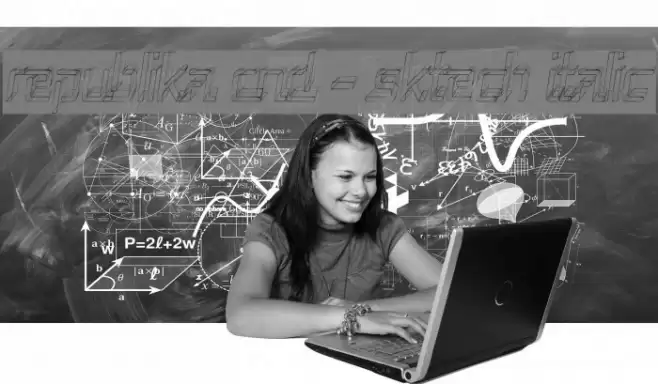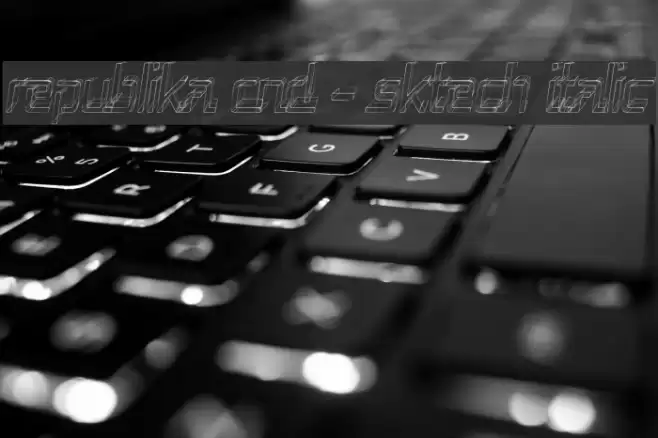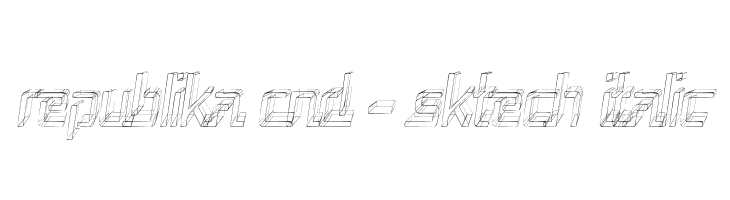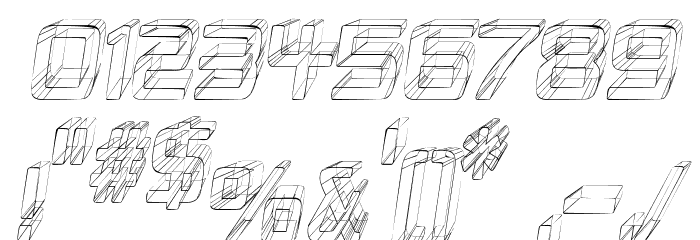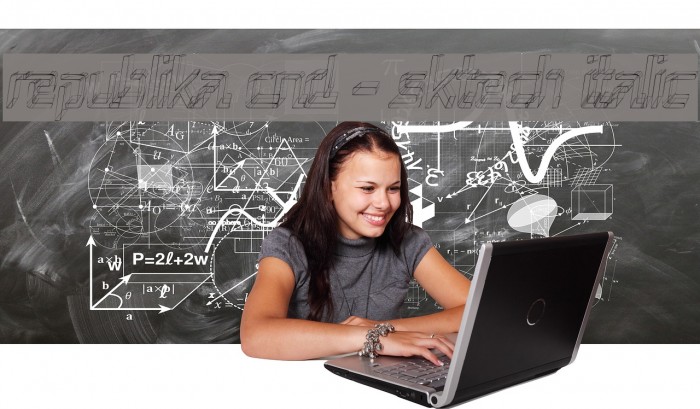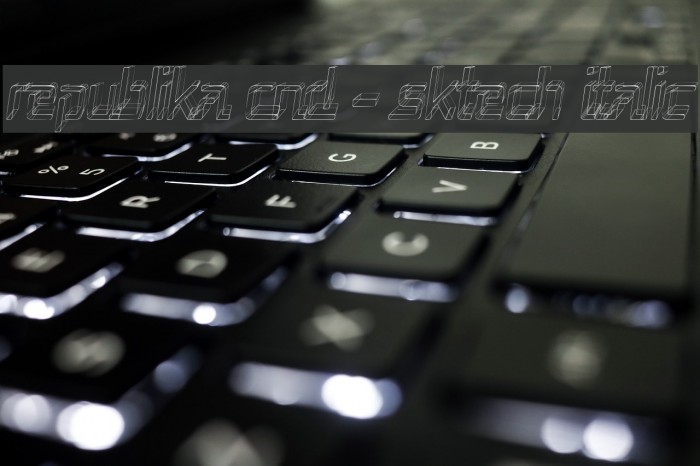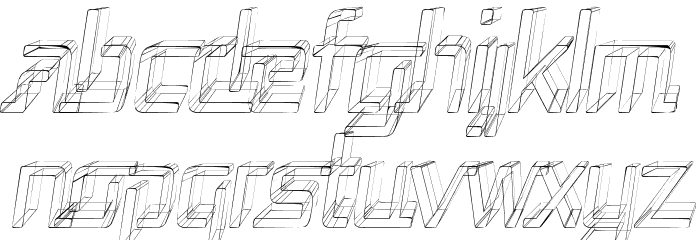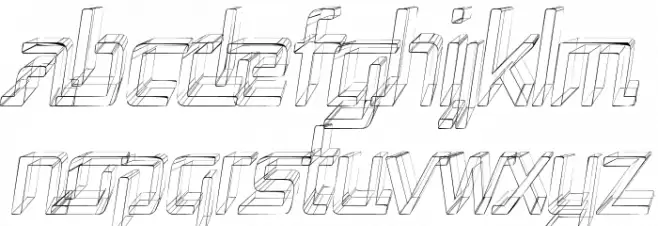
Republika Cnd - Sktech Italic Font
Republika Cnd - Sktech Italic Description
This font features a unique, sketch-like design with a condensed and italicized style. The characters are outlined with a three-dimensional effect, giving them a dynamic and modern appearance. The uppercase and lowercase letters maintain a consistent slant, enhancing the italicized look. The numerals and special characters follow the same stylistic approach, ensuring uniformity across all glyphs. The font's sketchy outline adds a creative and artistic touch, making it stand out in any design project.
A condensed, italicized font with a sketch-like, three-dimensional outline from Outline fonts.
- Proposed Projects: Ideal for creative design projects, artistic posters, modern branding, and innovative advertising materials.
- Overall Style: Modern, Artistic